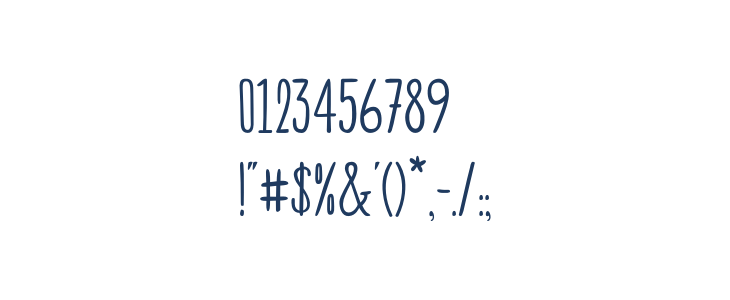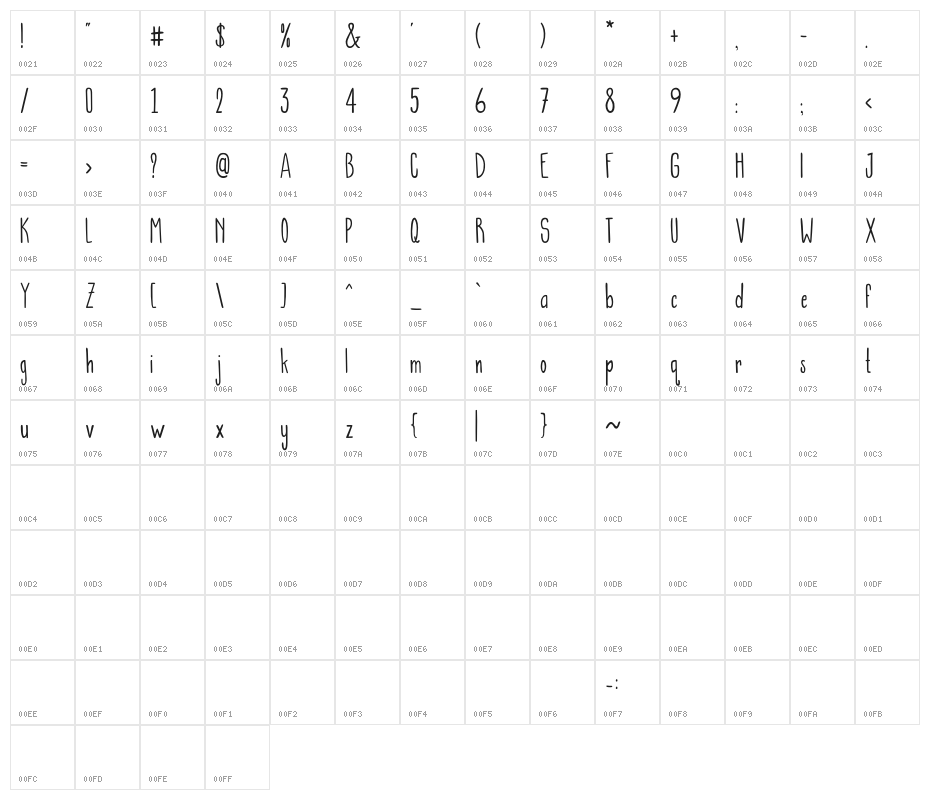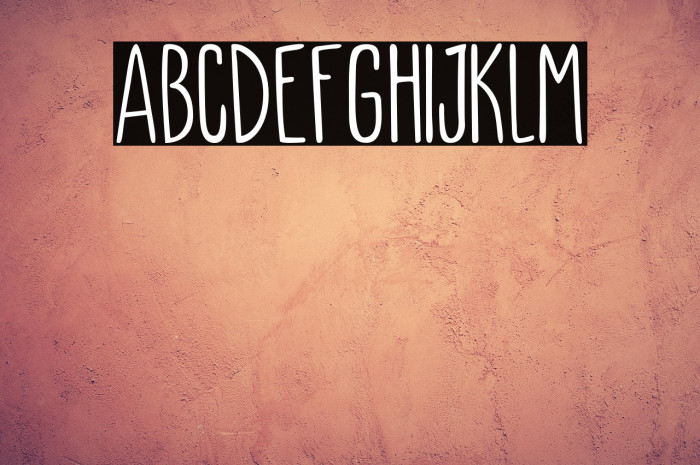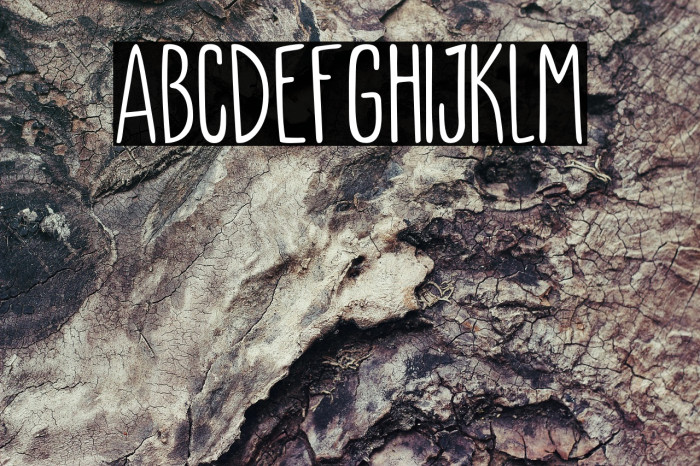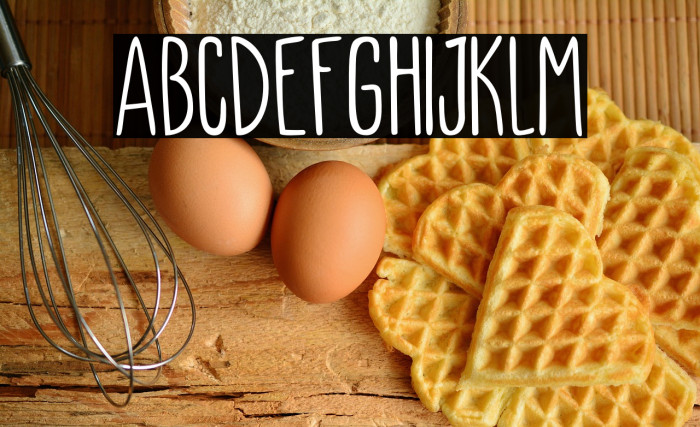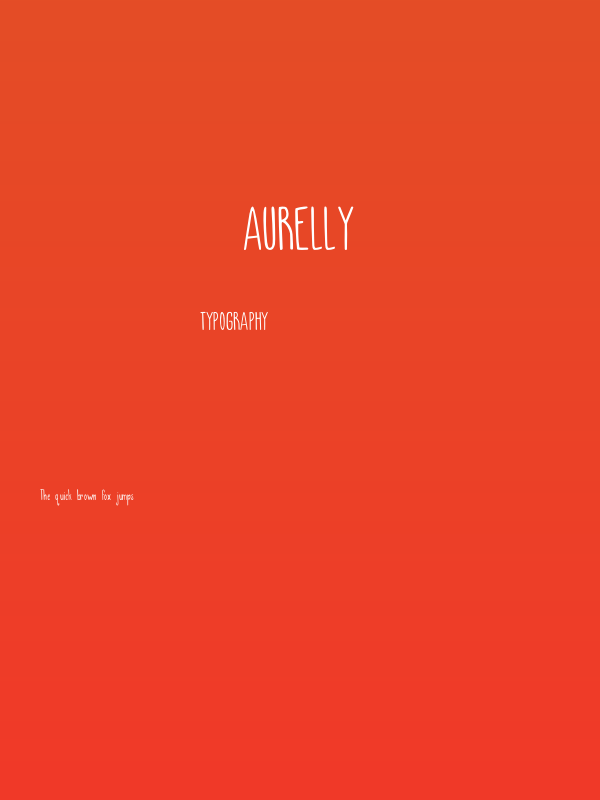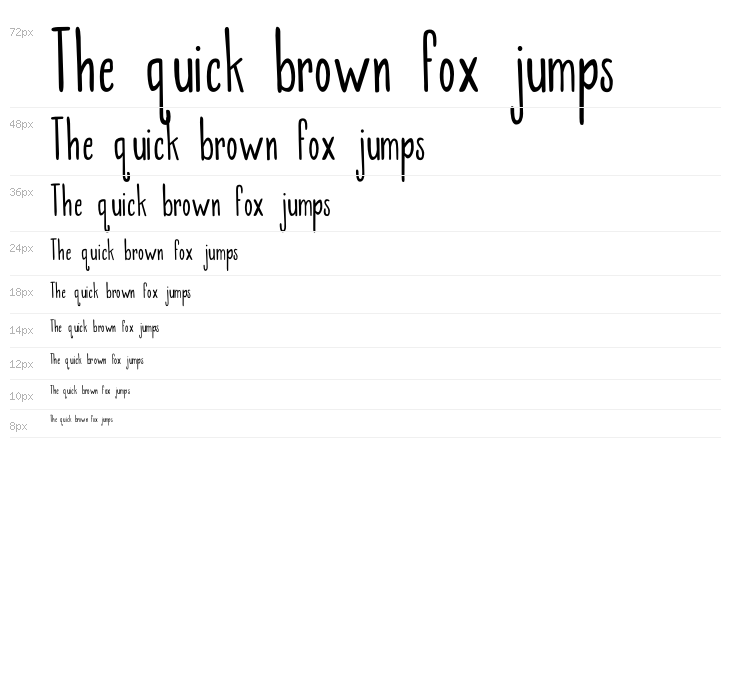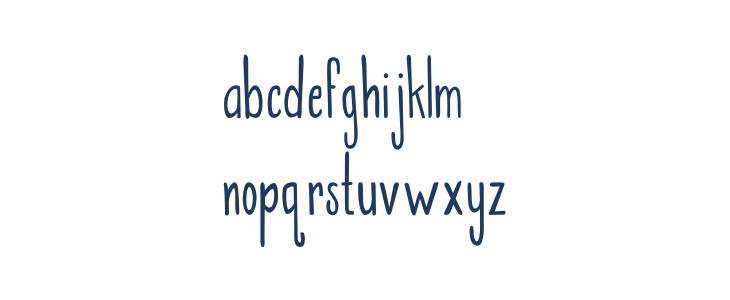
AURELLY Font
AURELLY Description
This font features a playful and casual handwritten style, characterized by its elongated and slightly irregular letterforms. The uppercase and lowercase letters maintain a consistent flow, with rounded edges and a friendly appearance. The numerals and special characters complement the overall design, adding to its approachable and informal feel. The font's simplicity and charm make it suitable for a variety of creative projects, where a personal touch is desired.
| Use Case | Logos, Headlines, Informal text |
| Proposed Projects | Ideal for greeting cards, children's books, casual branding, and social media graphics. |